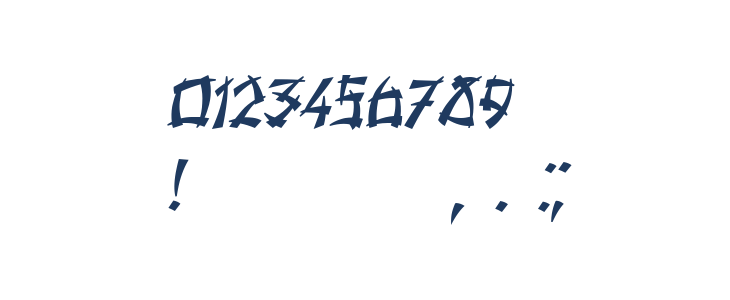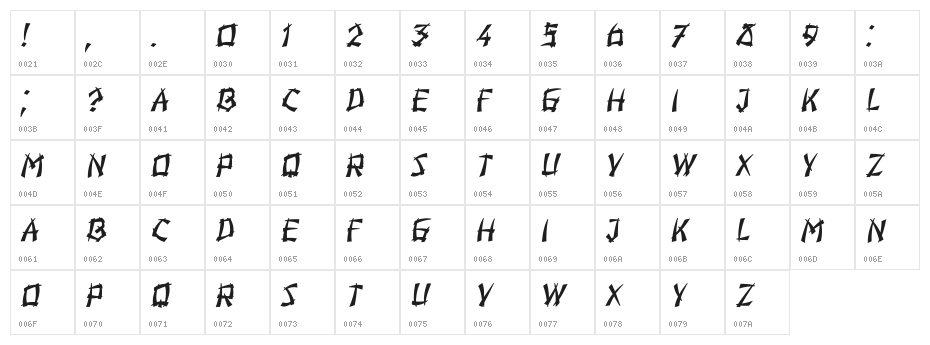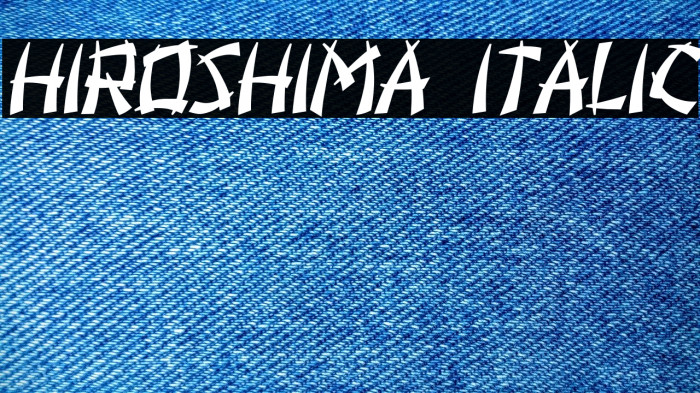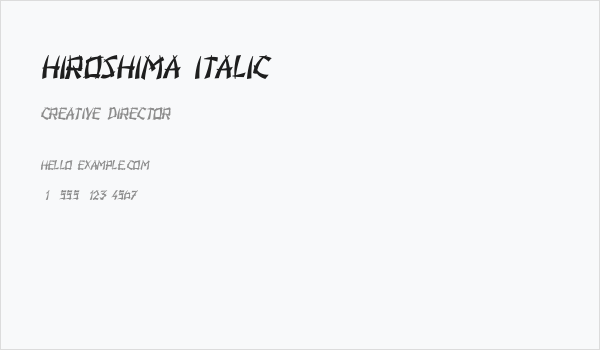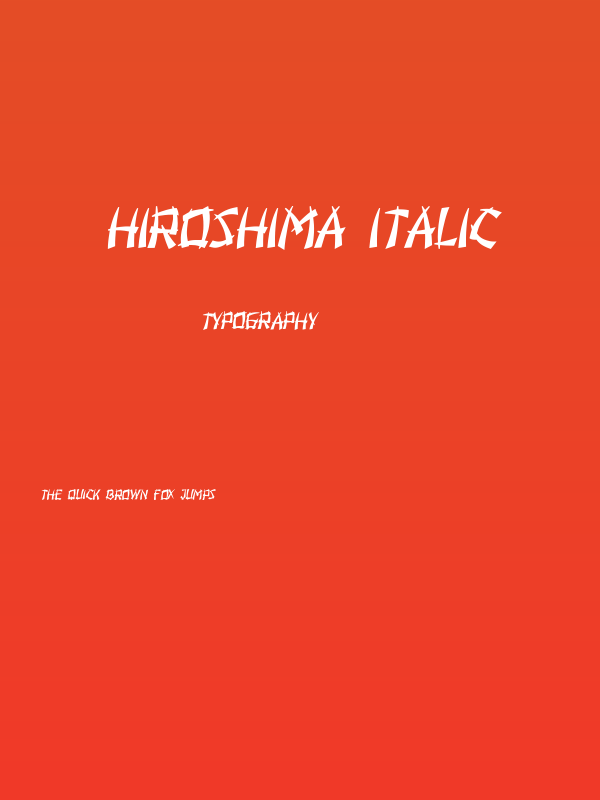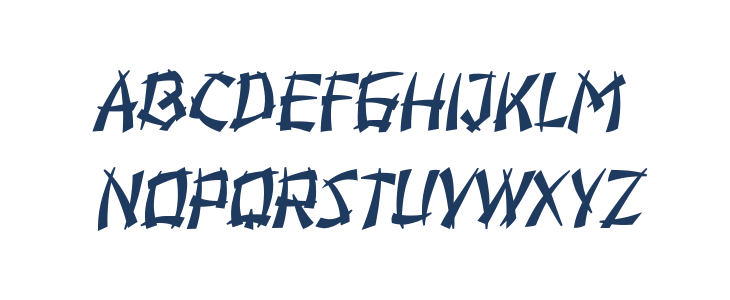
Hiroshima Italic Font
Hiroshima Italic Description
This font features a bold, angular design with a distinct italic slant, giving it a dynamic and edgy appearance. The characters are sharply defined with a high contrast between thick and thin strokes, creating a sense of movement and energy. The overall style is reminiscent of graffiti or street art, with a modern twist. The uppercase and lowercase letters maintain a consistent style, while the numerals and special characters complement the overall aesthetic. This font is ideal for projects that require a bold statement and a touch of rebellious flair.
| Proposed Projects | Ideal for urban-themed designs, music album covers, posters, and streetwear branding. |